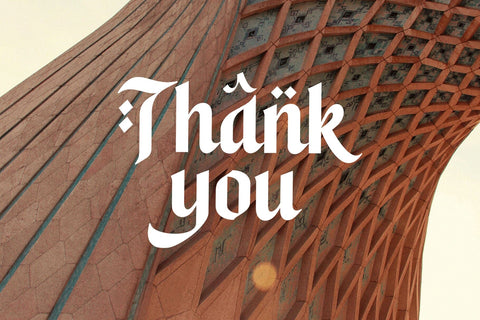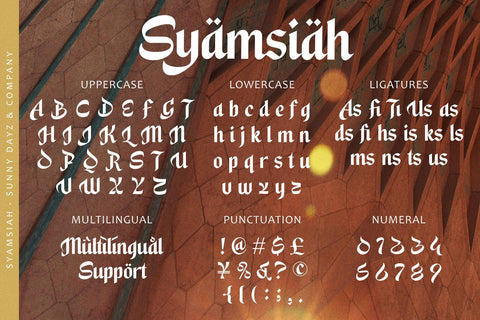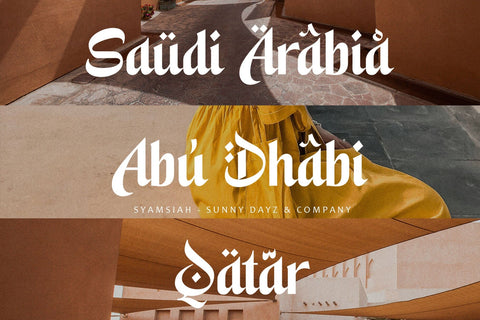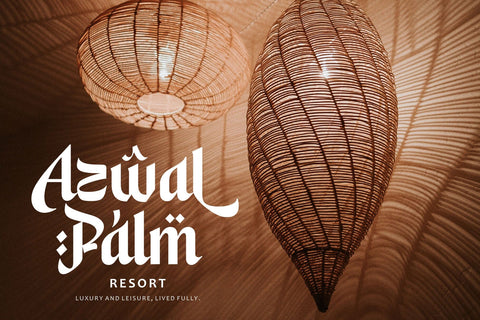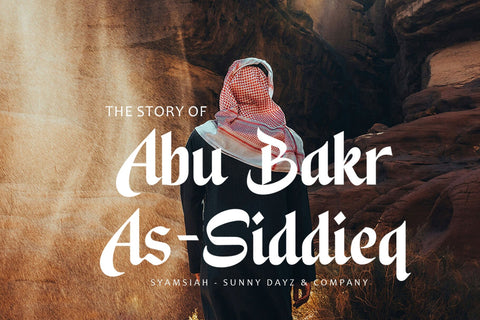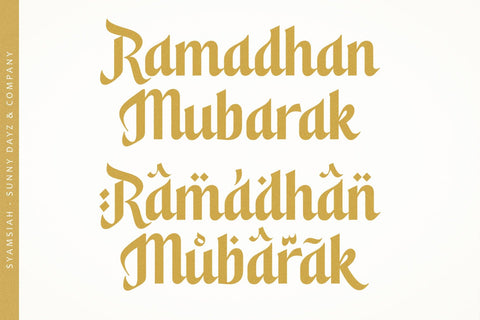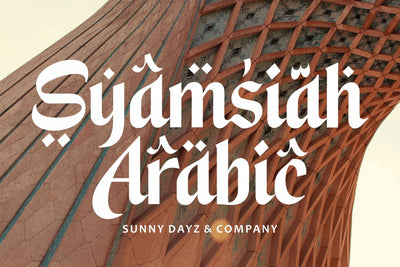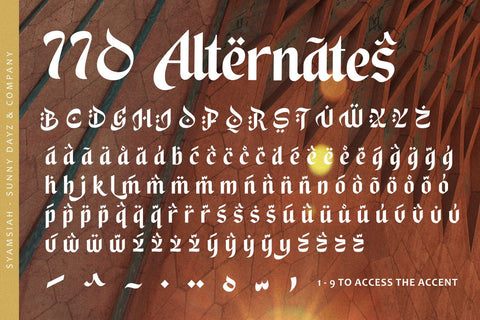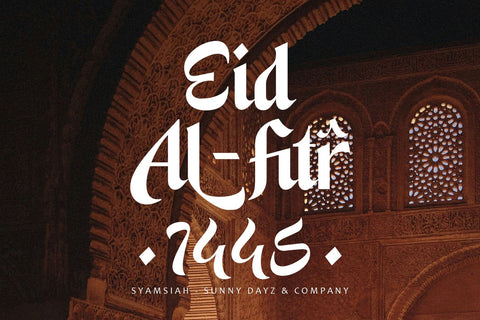
Syamsiah - Arabic Display Font
Introducing Syamsiah Arabic – a font designed with meticulous attention to detail to offer seamless readability. Characterized by elegant curves and precise strokes, Syamsiah Arabic establishes a benchmark in both legibility and visual allure. This font is ideally tailored for a diverse range of creative projects, harmoniously combining aesthetics with practicality.